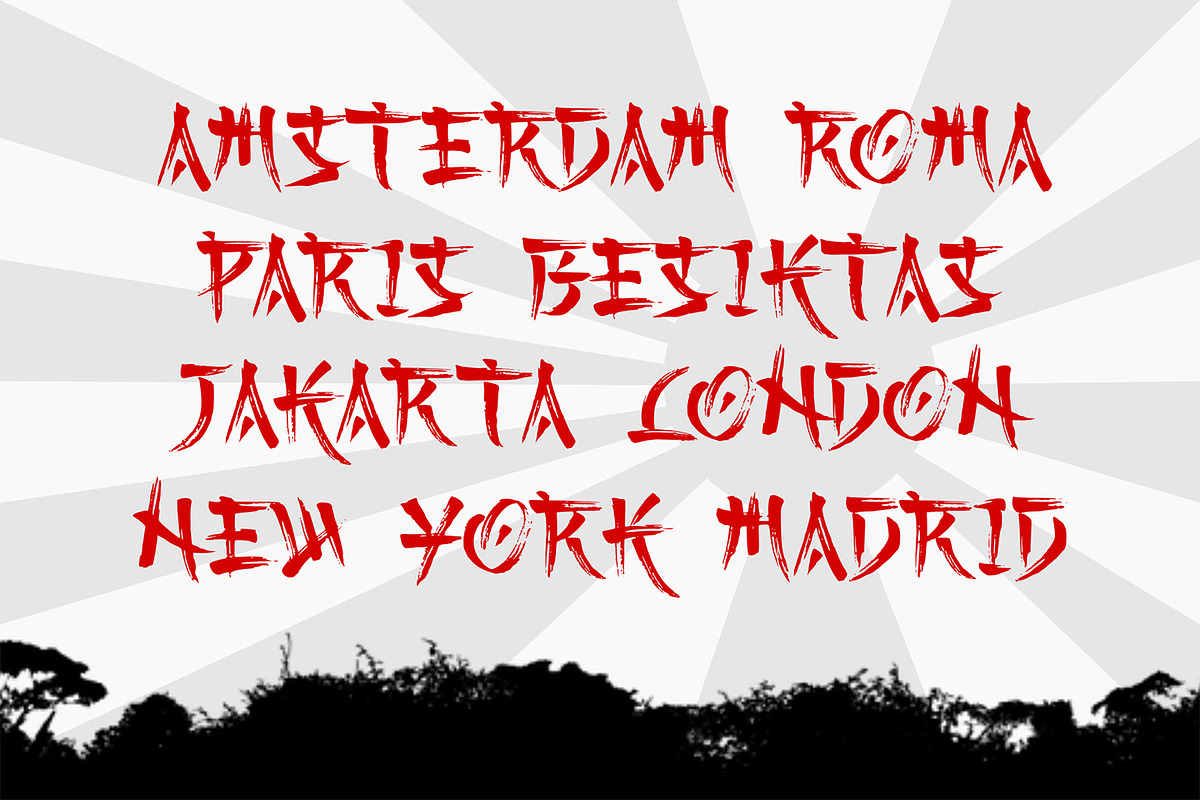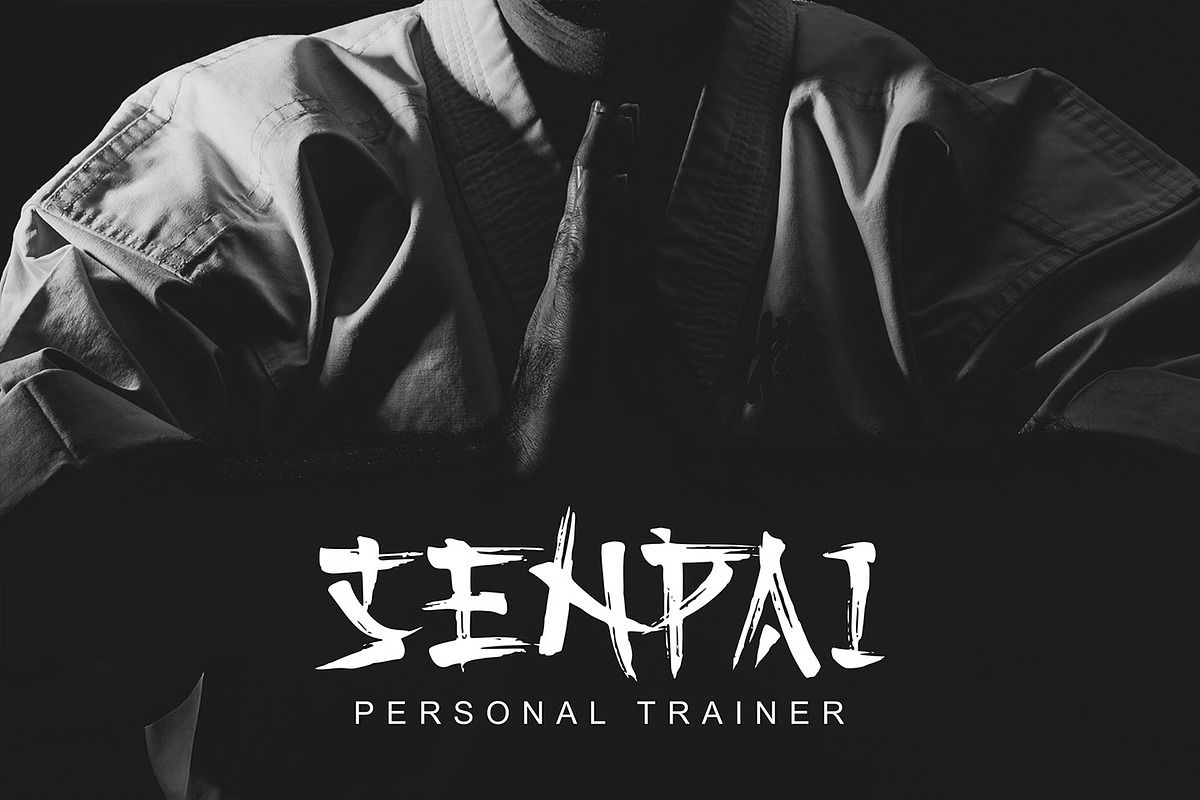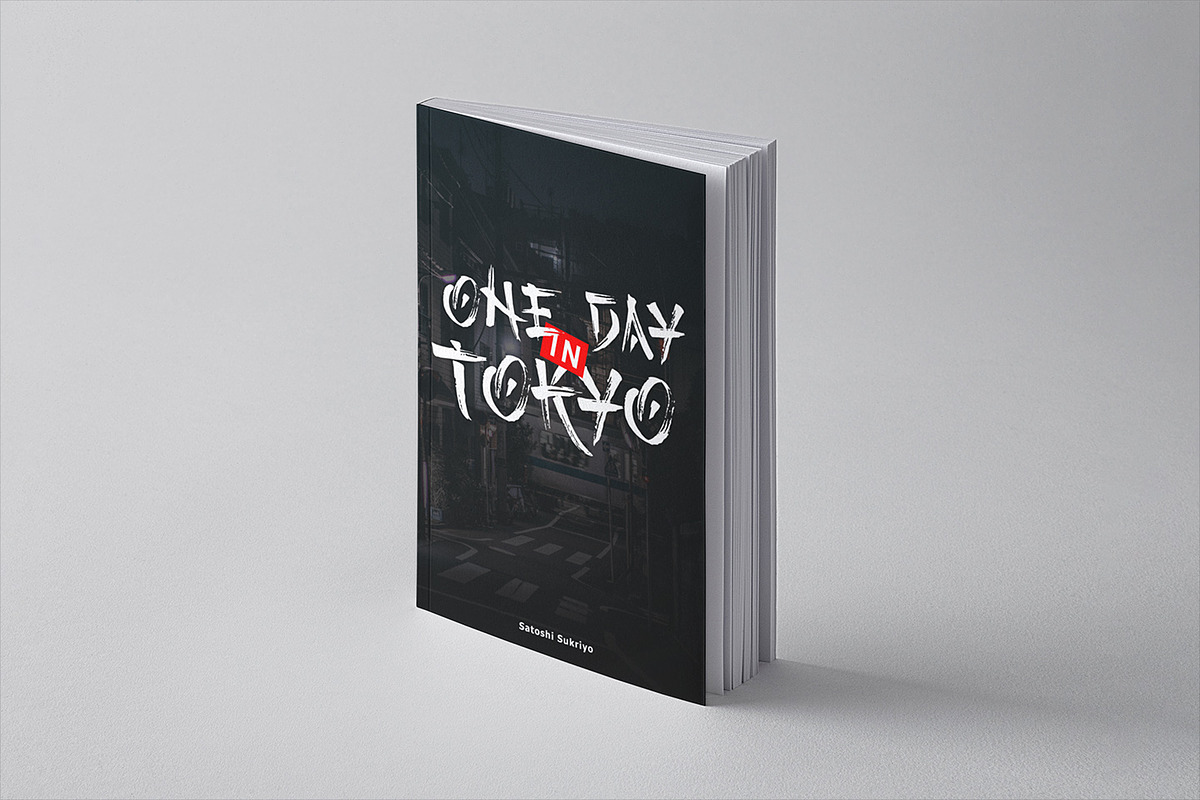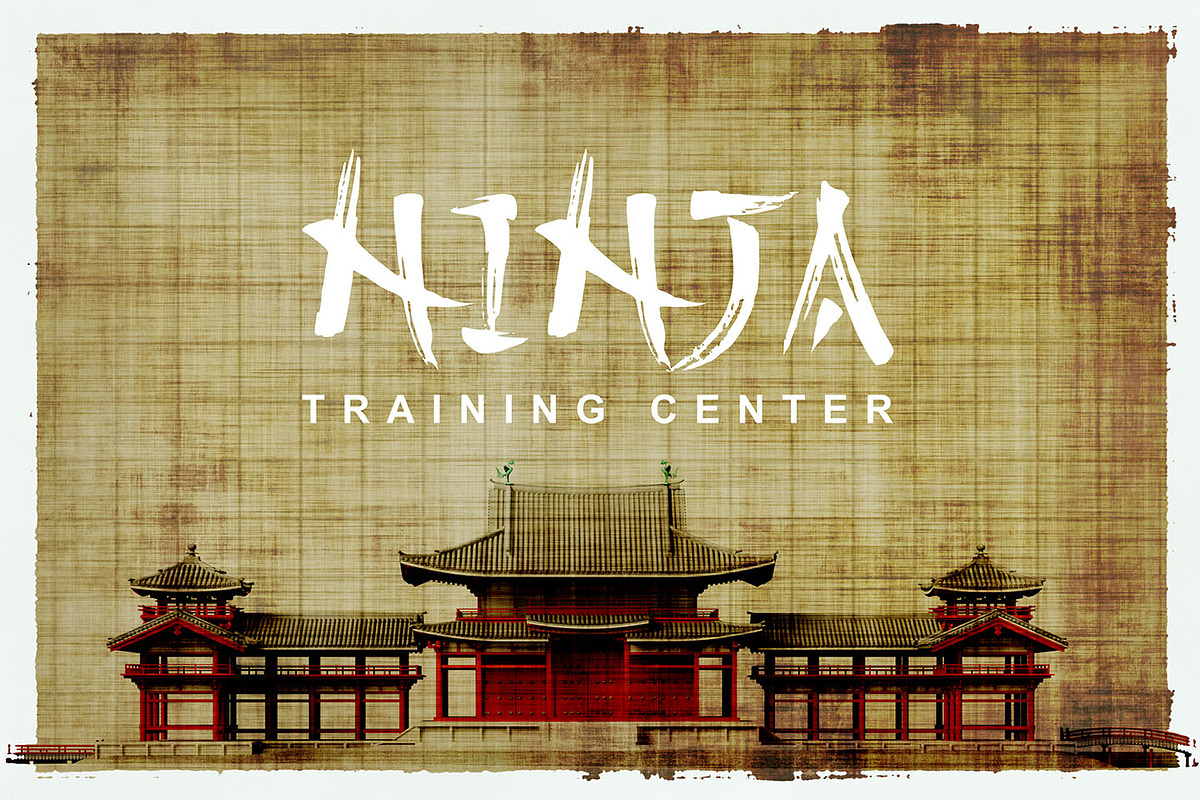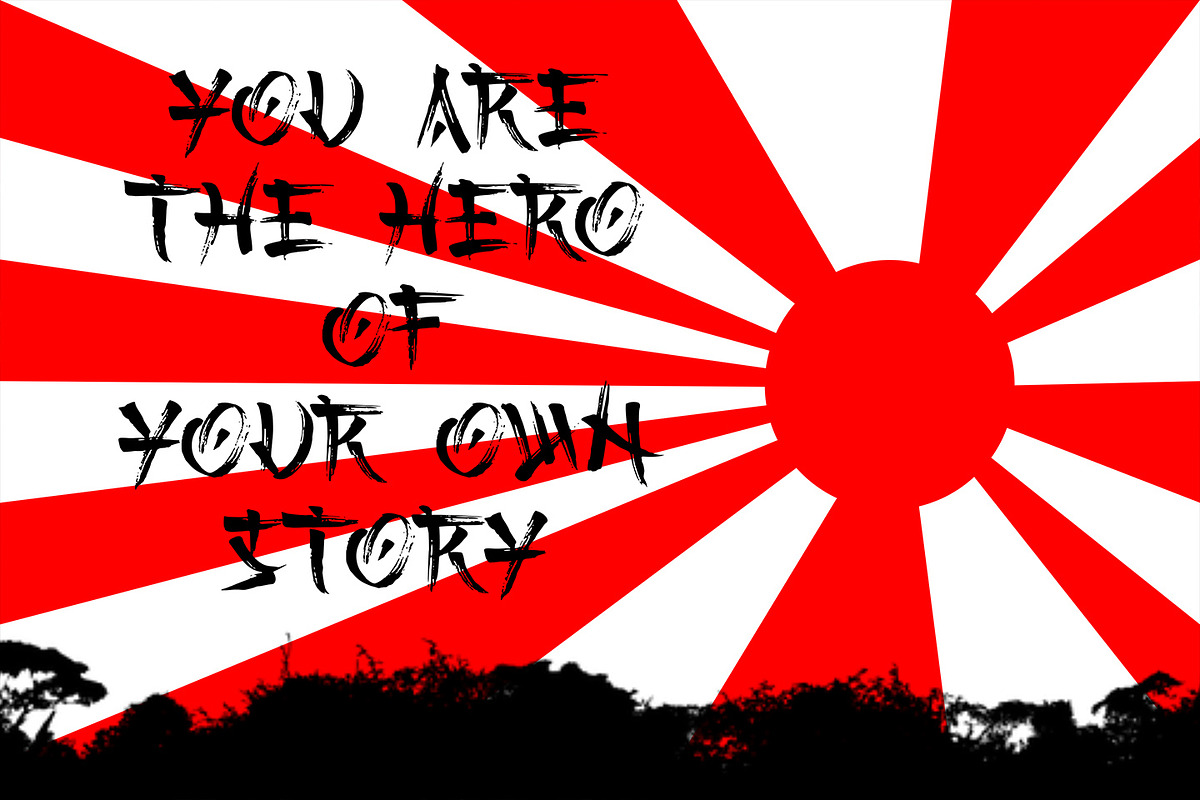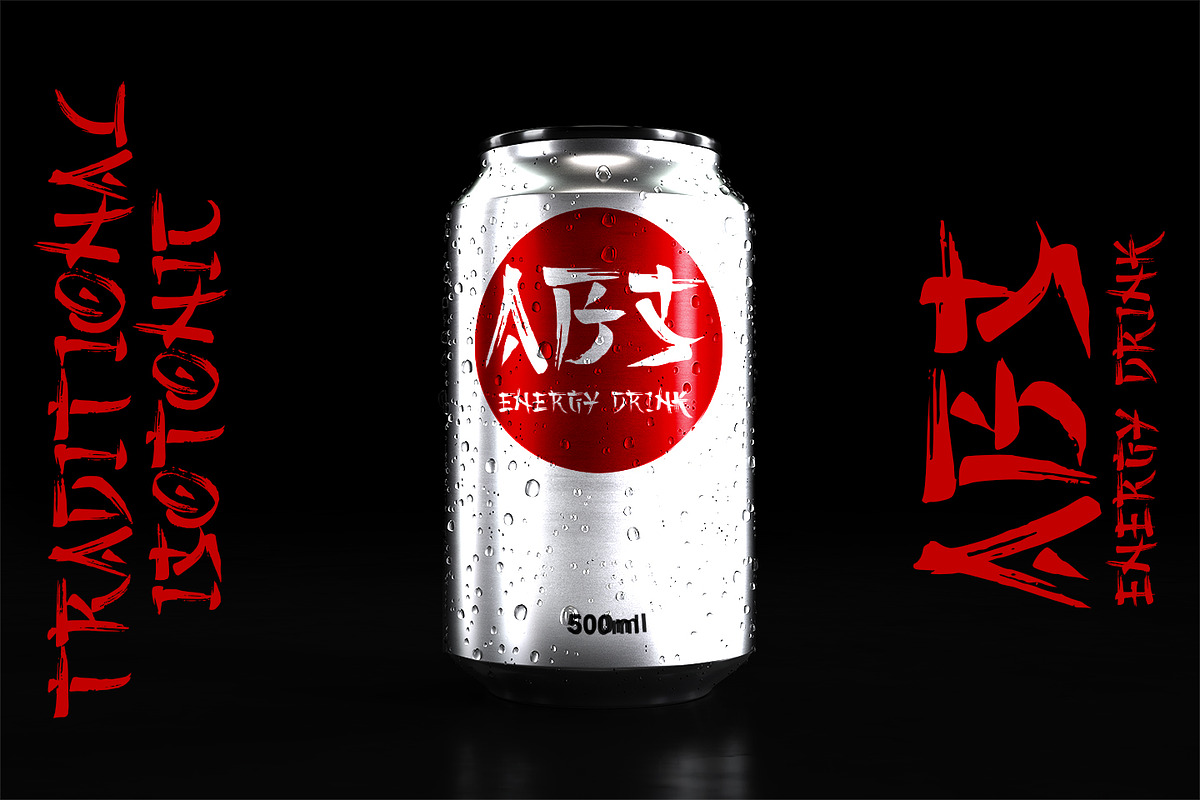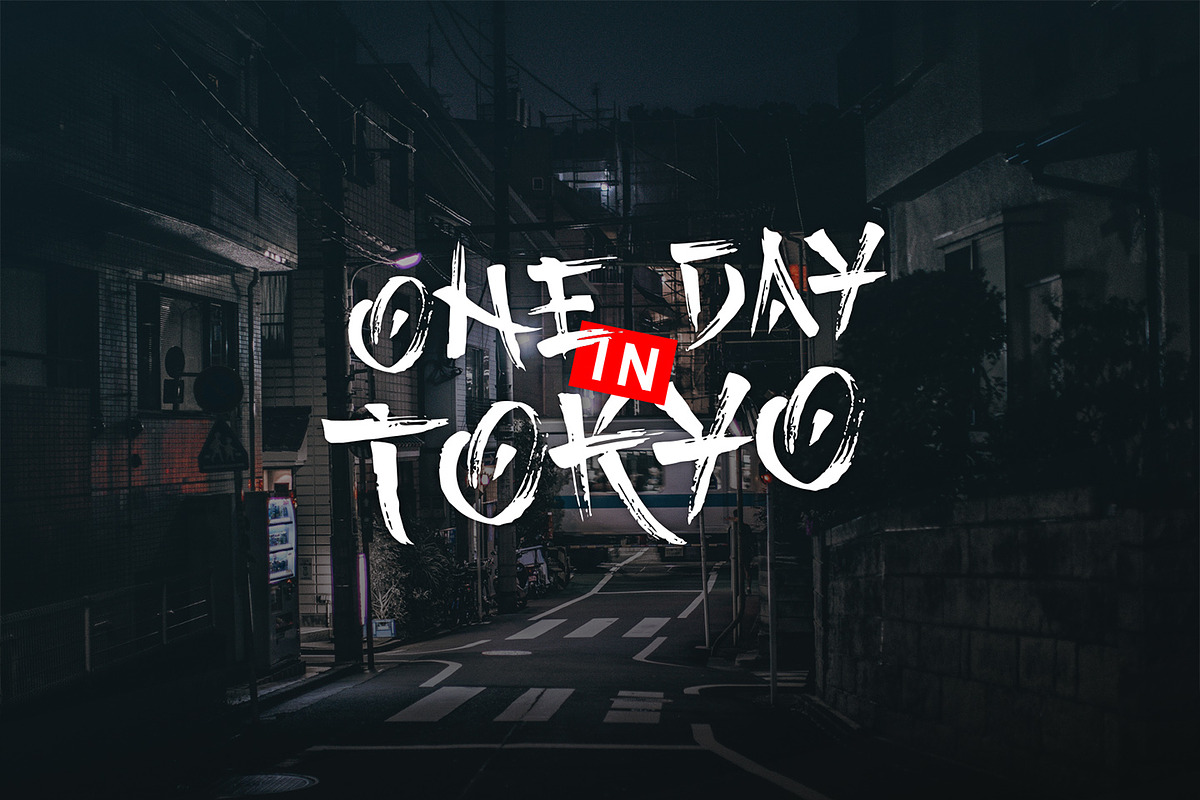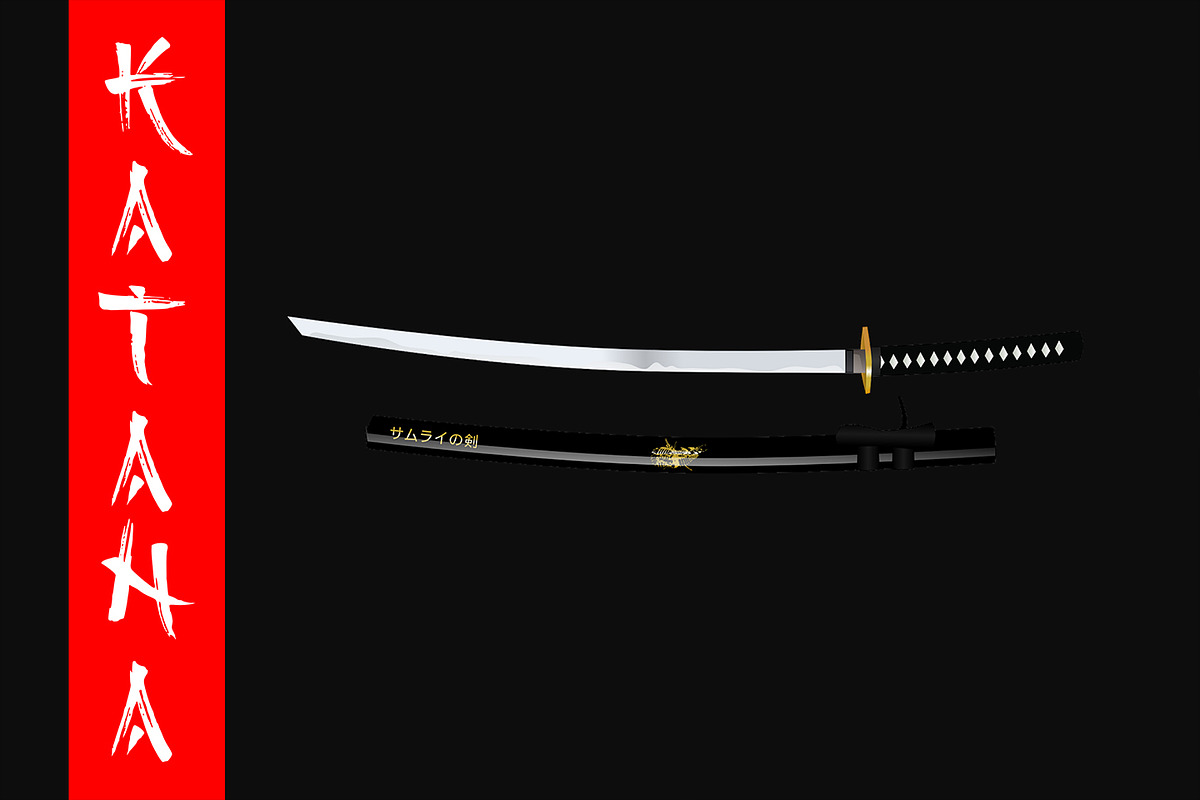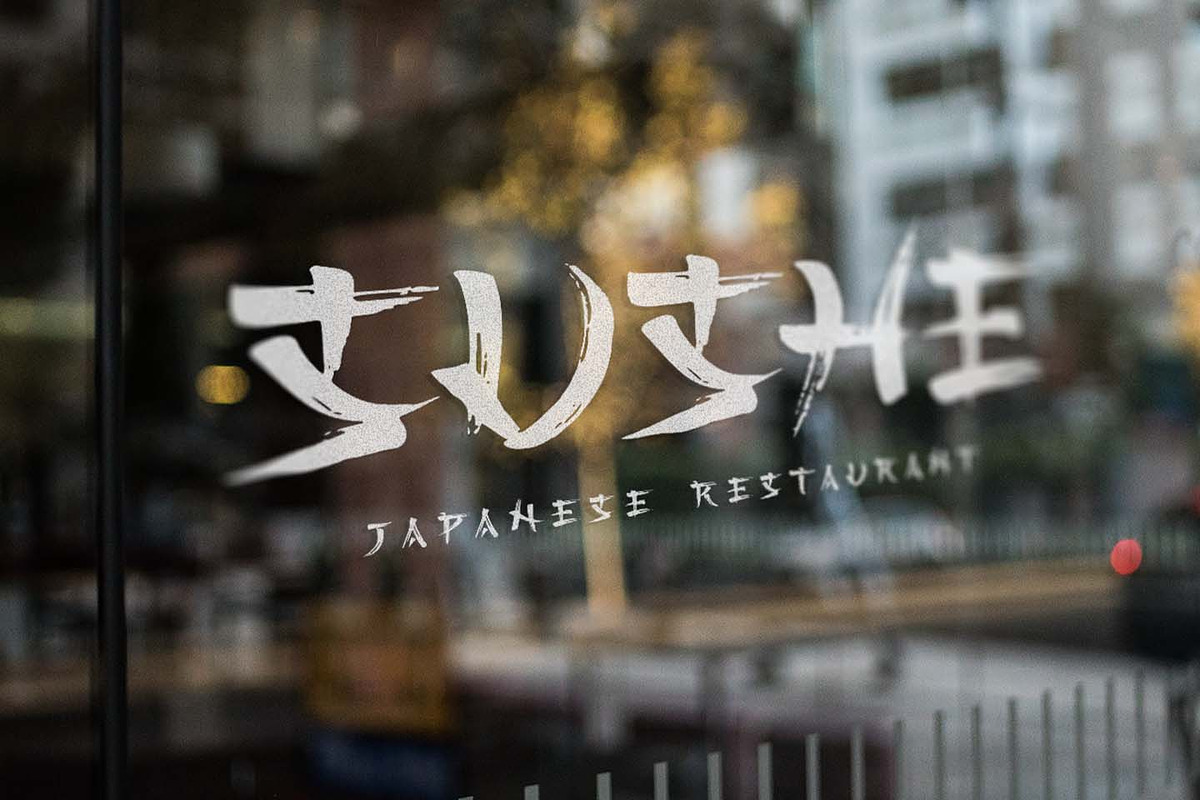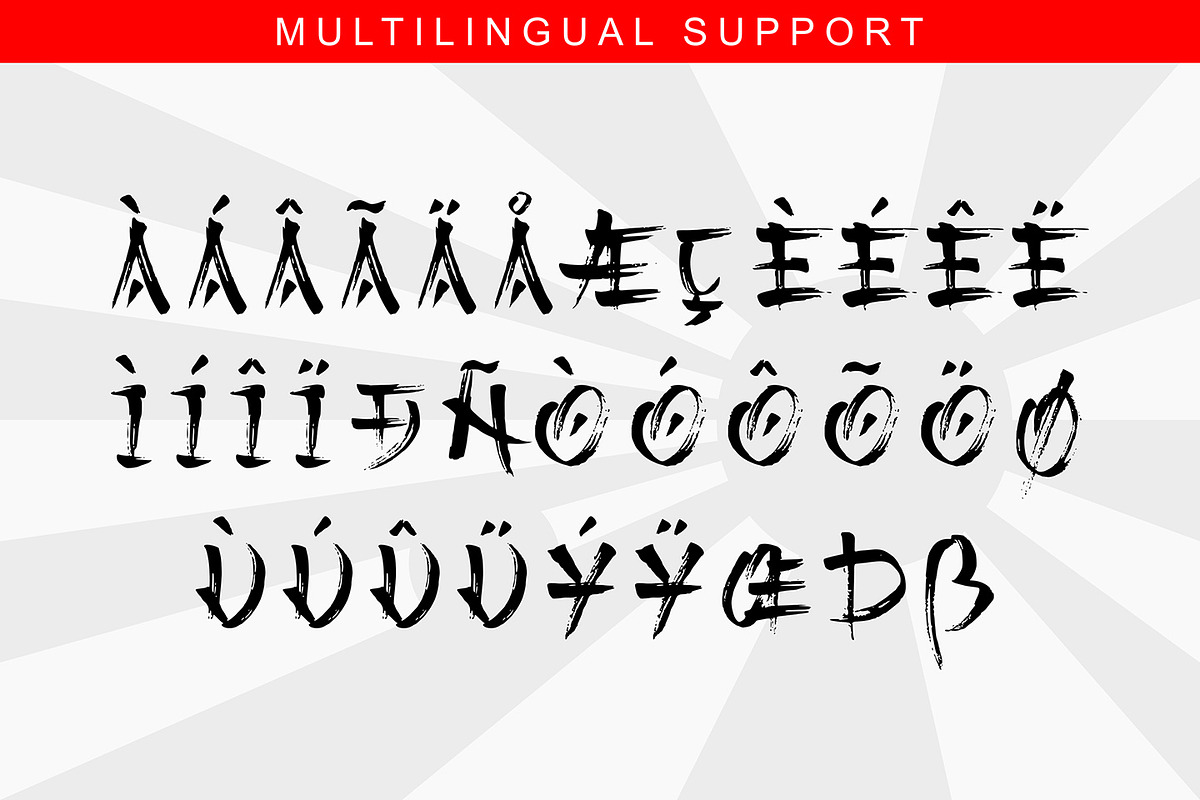
Kashima
KASHIMA - Japanese-style Brush Font -
KASHIMA is inspired by Japanese traditional calligraphy.
Created using scanned original brush pen strokes, making this font look so natural and original. It is more than just an art.
KASHIMA is great for apparel, branding, logo, magazine, quotes, packaging, advertising, and more, which need a styling of a Japanese brush feel.
KASHIMA is an all capital font and includes punctuation, symbols, and numerals. It also has multilingual support, and PUA encoded.